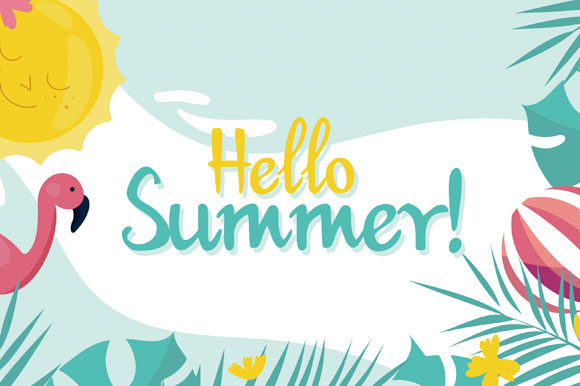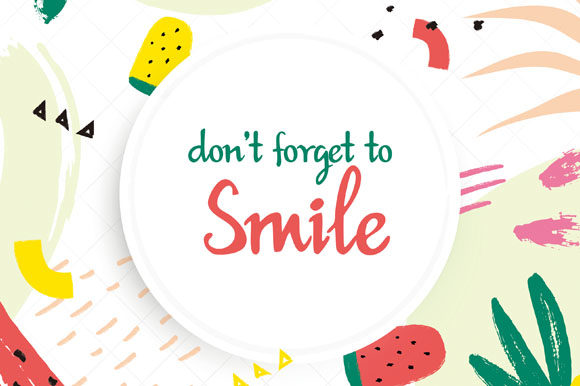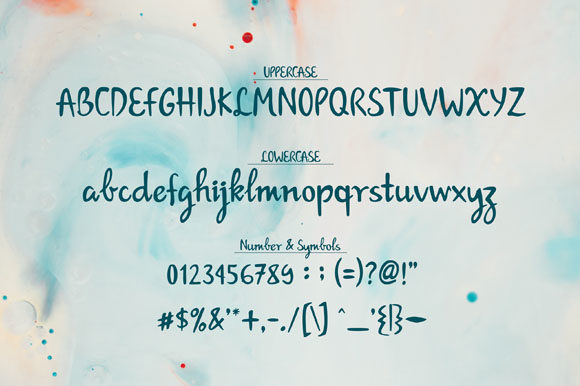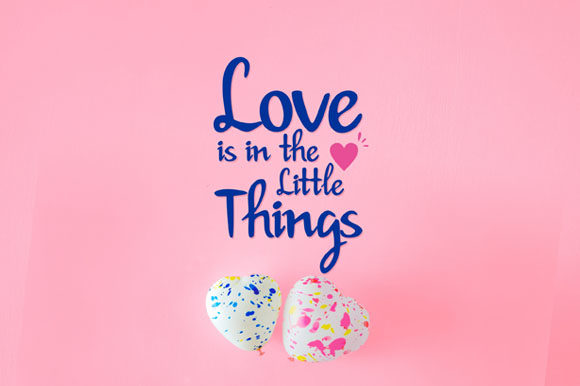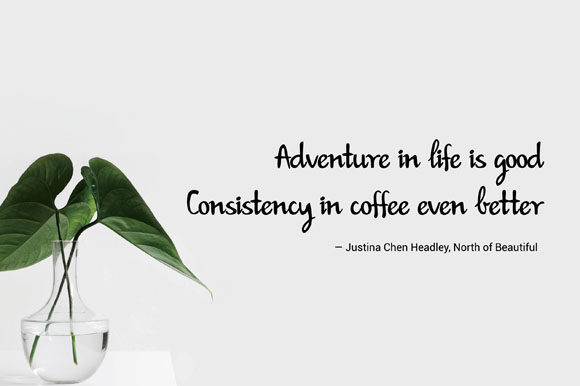
Lainera Font
About Lainera Font
Lainera is a cute and friendly handwritten font. With a classy and natural style, it will bring any creative idea to life! Fall in love with its incredibly versatile style and use it to create spectacular designs!